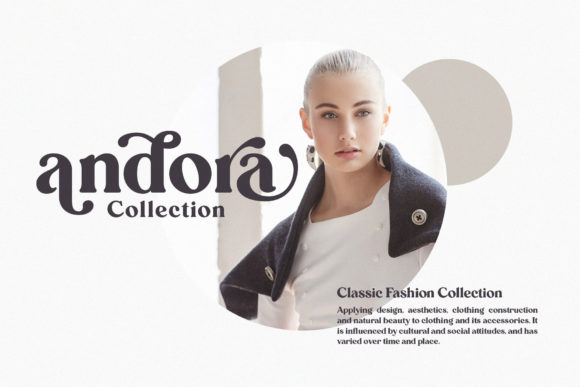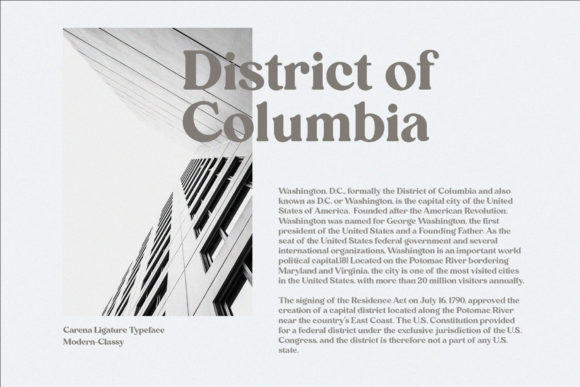
Carena Font
Carena is a classy and stylish serif font. Fall in love with its incredibly versatile style and use it to create gorgeous wedding invitations, beautiful stationary art, eye-catching social media posts, and much more!